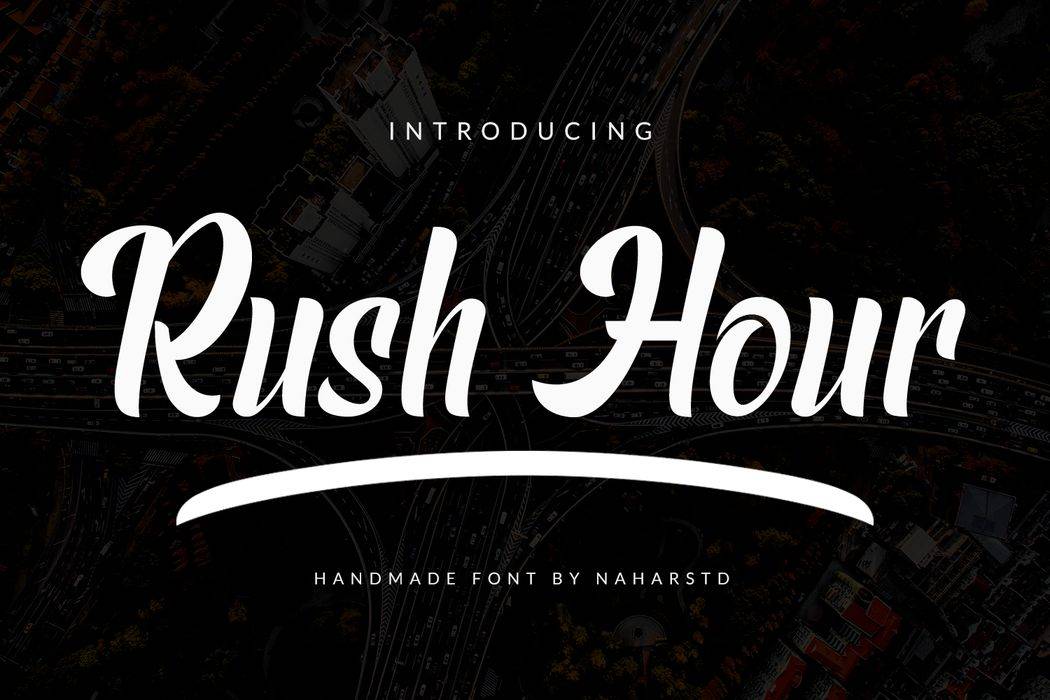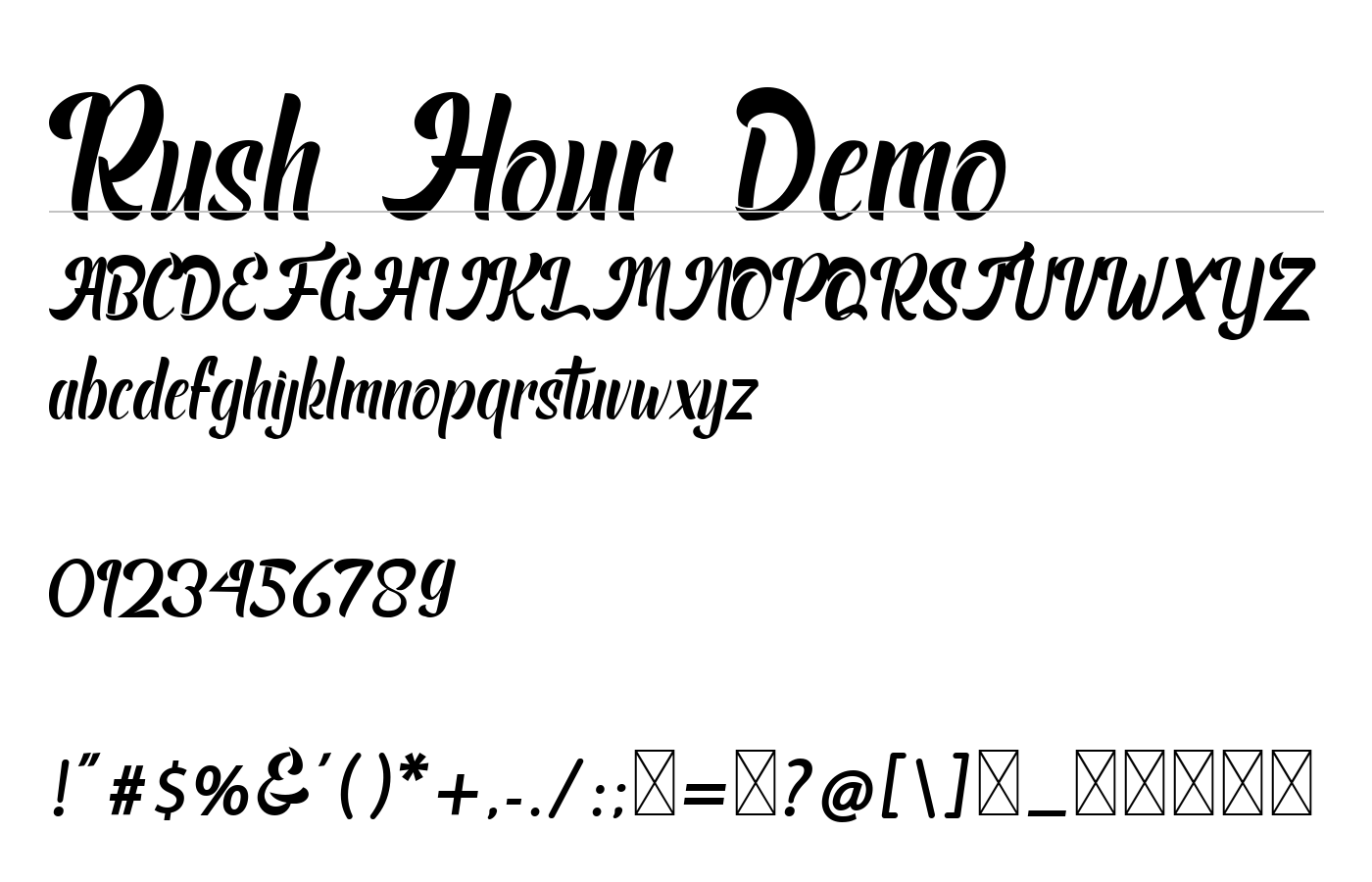
Rush Hour is a stylish script font with a strong vintage flair, featuring bold, flowing strokes that convey elegance and personality. Its moderately high contrast and smooth, calligraphic curves make it an excellent choice for eye-catching headlines, logos, and branding that seek a classic yet dynamic look. This font works well in fashion, luxury packaging, and editorial use where a distinctive, refined impression is desired.
Rush Hour
About Rush Hour
| Font family | Rush Hour |
| Designer | Nanda Hardiansyah | Naharstd |